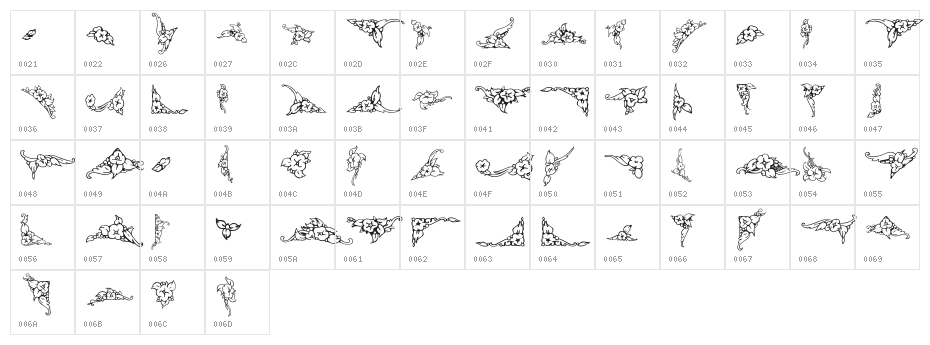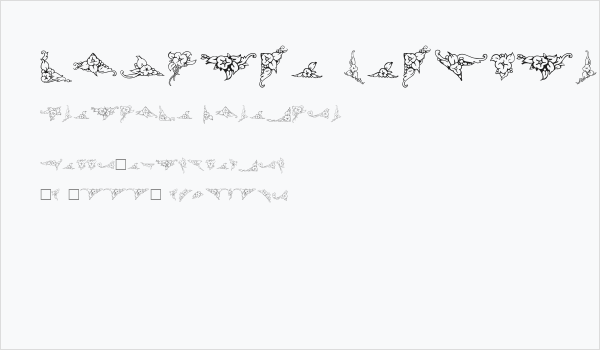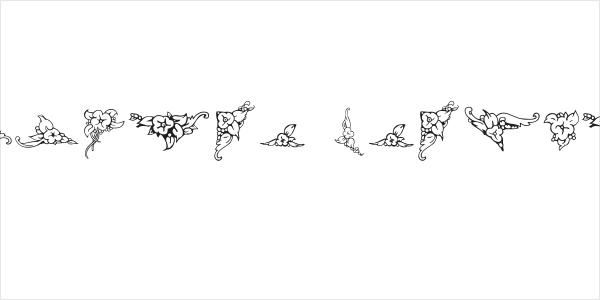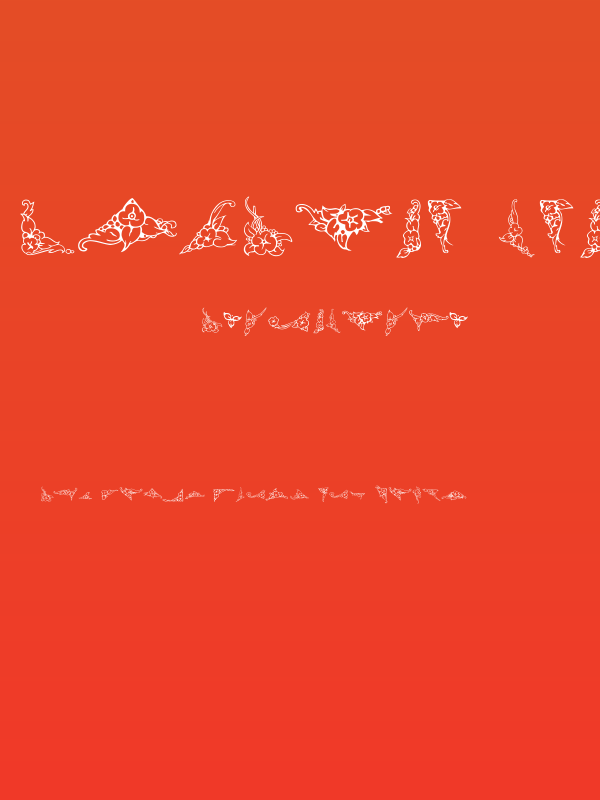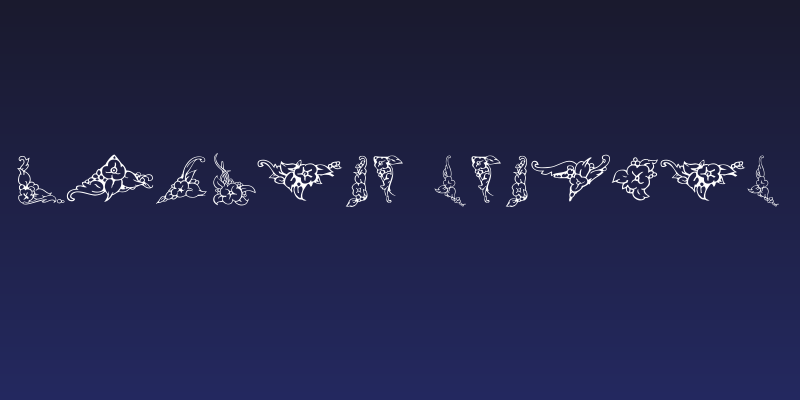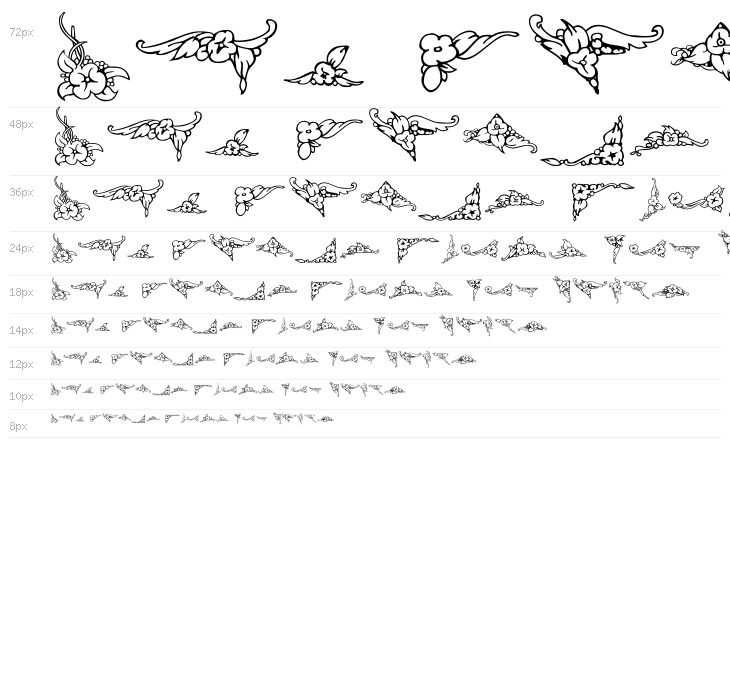
Vintage Regular Font
| Anwendungsfall | Decorative elements, not suitable for text. |
| Vorgeschlagene Projekte | These decorative elements could be used for creating borders, embellishments in graphic design projects, or as decorative accents in invitations and stationery. |